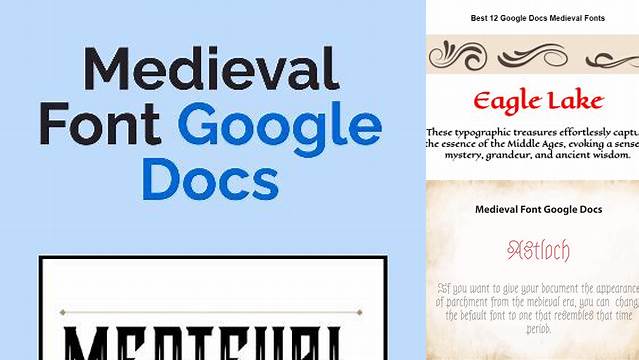
Awesome Medieval Fonts For Google Docs
Hey guys! Ever wanted to give your Google Docs a touch of history, maybe channel your inner scribe, or just make your document look super cool? Well, you're in luck! Today, we're diving deep into the world of medieval fonts you can use right inside Google Docs. Yep, you heard that right. We're talking about fonts that'll transport you back to the age of knights, castles, and, of course, epic tales. So, buckle up, because we're about to explore some seriously awesome font options that will make your documents stand out. Whether you're working on a creative writing project, a historical report, or just want to add a unique flair to your work, these fonts are your secret weapon. Let's get started, shall we?
1. Unveiling the Charm of Medieval Fonts
Alright, let's kick things off with a deep dive into what exactly defines a medieval font. These fonts are more than just letters; they're a window into the past. They capture the essence of the medieval era, with their intricate details and unique styles. Think about the elegant calligraphy used in illuminated manuscripts, the bold lettering seen on royal decrees, and the various styles crafted by scribes in monasteries across Europe. These fonts often feature flourishes, serifs, and sometimes even ligatures, which are special characters where two or more letters are combined. The beauty of medieval fonts lies in their ability to evoke a sense of history, making them perfect for projects that require a touch of authenticity. They can be used for a variety of projects, including historical fiction, creating invitations for themed events, or adding a vintage vibe to your documents. When choosing a medieval font, it's important to consider the overall feel you want to convey. Do you want something that looks elegant and refined, or something more rugged and bold? This choice will depend on the specific needs of your project. Google Docs offers a range of medieval-inspired fonts that bring the charm of the Middle Ages right to your fingertips. By using these fonts, you can elevate your documents and add a touch of historical sophistication.
1.1. Understanding the Characteristics of Medieval Typography
So, what makes medieval typography so special, you ask? Well, it's all about the details. Medieval fonts are characterized by several key features. Firstly, we have serifs. Serifs are the small strokes extending from the main strokes of a letter, giving it a distinctive look. Many medieval fonts use serifs to provide a sense of elegance and structure. Next, there's the use of varying stroke thickness. Medieval fonts often showcase a contrast between thick and thin strokes, adding depth and visual interest. The curves and angles of the letters are also important. Many medieval fonts are inspired by hand-drawn calligraphy, which is evident in the way the letters are crafted, with flowing lines and a sense of movement. Additionally, you'll find ligatures, where two or more letters are joined to create a single character, such as “æ” or “œ.” These ligatures were common in medieval writing and helped to improve the overall look of the text. When examining a medieval font, look for these characteristics. The interplay of serifs, stroke thickness, curves, and ligatures are all indicators of authentic medieval typography. Consider how these elements can influence your project. By selecting fonts with these qualities, you can create documents that look and feel truly medieval, adding depth and authenticity to your work.
1.2. The Historical Significance of Medieval Lettering
Let's talk history, shall we? Medieval lettering isn't just about aesthetics; it's also deeply connected to history. The fonts of the Middle Ages reflect the cultural, social, and technological developments of the time. The evolution of lettering styles mirrors the evolving styles of writing. Initially, most books and documents were written by hand by monks in monasteries. This meant that the way the text looked depended on the skills of the individual scribe. Gradually, different writing styles emerged, each with its own characteristics and regional variations. For example, the Gothic script became particularly popular in the late medieval period, characterized by its angular and condensed letterforms. This style was not just a way of writing, but also a reflection of the artistic values of the time. When we use a medieval font, we connect to a rich cultural heritage. We are not just choosing a design; we are embracing a part of history. The fonts we use were used in creating some of the most important documents in European history, from religious texts to royal decrees. Using these fonts can help create a deeper connection to the past and allow you to understand the evolution of typography.
2. Finding Medieval Fonts on Google Docs
2.3. Troubleshooting Font Issues in Google Docs
Sometimes, you might face some small font issues when working with Google Docs. Let's go over some ways to solve these issues. First, make sure the font you want to use is properly installed. Go to the font menu and double-check that the font is listed. If it’s not there, go back to the Google Fonts library and re-add it. Another common issue is the font rendering incorrectly. If the font looks distorted or not as expected, try refreshing your browser or clearing your browser cache. Sometimes, the font might not display correctly on other devices. This can happen if the device doesn't have the font installed. Make sure that the font is a web-based font. For a more consistent look, you can always use a PDF format, which embeds the fonts and will display correctly on any device. If you are having problems, you can always try reformatting the text or using a different font. If you still experience issues, Google Docs' support documentation or online forums can provide helpful advice. By following these troubleshooting tips, you can ensure your medieval fonts display as intended in Google Docs and make your documents great.
3. Top Medieval Fonts for Google Docs
Now, let's get to the good stuff: the fonts! I'm going to give you a rundown of the top medieval fonts you can find on Google Docs. These fonts have been selected for their historical accuracy, visual appeal, and ease of use. Each font adds a special touch to your projects, taking you back in time.
3.1. Font Recommendations for Historical Accuracy
If you are aiming for maximum historical accuracy, the selection of fonts is important. Here's what to look for. Goudy Medieval is an amazing choice. It's based on the work of Frederic Goudy, one of the most famous type designers. It has a classical look, with serifs, and is great for body text and headings. Fraktur fonts, such as “UnifrakturMaguntia” and “Blackletter,” are also good. These fonts are often associated with German culture, with the look that was popular in medieval times. They have a distinct style, and are great for a more unique look, particularly for headlines and titles. Look for fonts that imitate the calligraphy styles of the time. These fonts give a personalized touch to your documents, as they replicate the work of medieval scribes. For this type of font, look for those that include ligatures, ascenders, and descenders. These elements are important to convey the feel of old manuscripts and original medieval documents. By picking fonts from these options, you can create historically accurate documents and will take your projects to another level. It is important that you consider each font and what it adds to your project.
3.2. Stylish Medieval Fonts for Creative Projects
Looking for something a little more stylish to give your projects a unique touch? Let's explore some cool medieval fonts perfect for creative projects. For a touch of elegance, consider fonts that have a flowing, calligraphic feel. These fonts are great for invitations, certificates, and anything that needs a touch of sophistication. Another excellent choice is fonts with a strong, bold design. These types are useful in headings and titles, especially where you want to attract attention. When considering a font, you can also include elements of design, such as intricate borders. This can add a vintage look and feel to your work. Experiment with these elements and fonts. The result will be that you will find fonts that best reflect the style you need for your project. Don’t be afraid to try various styles and sizes to find the perfect fit. By using these tools, you can bring your creative projects to life. You can enhance your creativity.
3.3. Versatile Medieval Fonts for Various Uses
Some medieval fonts work great for any project. They are great for different uses, and can enhance the look of your work. Consider fonts that combine readability with visual appeal. These are great for body text, titles, and headings. You can select fonts that are legible and still have that historical feeling. Explore fonts with a wide variety of characters, including ligatures and special symbols. These details can add authenticity and visual interest to your work. Versatile fonts are also easy to use. They should have a complete character set, which will let you use them across many applications. These fonts can be combined with various other fonts, or you can add your own. By picking versatile fonts, you will be able to create documents that are visually attractive. These fonts are great for various projects, and will enhance the overall appeal.
4. Optimizing Your Use of Medieval Fonts
Alright, now that we have the fonts, how do we get the most out of them? Let's look at how to optimize the use of medieval fonts for the best results.
4.1. Pairing Medieval Fonts with Modern Fonts
Mixing and matching fonts is one of the best ways to make your documents pop. Pairing medieval fonts with modern fonts can create a great contrast that can highlight important information in your documents. For example, combine a strong medieval font for your headings with a clean sans-serif font for your body text. This will give your document a great look and add interest. You could also use modern fonts for your data and figures. For instance, if you are producing a historical report, you could use a medieval font for the heading and a modern font for the data. Another great idea is to mix fonts based on the feel you are going for. You could use a serif font for headings and then a sans-serif font for subheadings. By combining the right fonts, you can make any text look and read great. You can have the aesthetic of the Middle Ages while creating the readability of modern design. Consider using different combinations to get the best look.
4.2. Font Size and Spacing Considerations
Font size and spacing are crucial when using medieval fonts. Since medieval fonts are often more ornate than modern fonts, it is important to choose the right size. Experiment with different sizes to make sure the text is readable and visually appealing. For headings, use a larger font size to attract attention. For body text, stick to a size that's easy to read. Next, look at the spacing between lines and words. Medieval fonts can often look cramped if the spacing is too tight. Increase the line spacing and adjust the letter spacing as needed. Use the spacing features in Google Docs to adjust your text until it looks balanced and harmonious. Don't be afraid to play around with these features to see what works best. This will help you balance the medieval style while maintaining readability. Adjusting font size and spacing can truly enhance the look of your work.
4.3. Color and Background Choices with Medieval Fonts
Let's discuss color and backgrounds. When using medieval fonts, choosing the right colors and backgrounds is key to making your document visually appealing. Traditional color palettes in medieval documents often included gold, deep reds, greens, and blues. Using these colors, you can create a look that feels authentic to the era. When choosing a background, keep it simple. A plain background or a subtle texture can enhance the look of your text without distracting from it. If you want a more sophisticated look, consider a parchment or aged paper texture. Avoid backgrounds that are too busy. Experimenting with color combinations and backgrounds can add richness and authenticity to your project. By choosing the right colors and backgrounds, you can create the perfect presentation for your documents.
5. Creative Uses of Medieval Fonts in Google Docs
Okay, now for the fun part! Let's explore some creative ways to use these amazing medieval fonts in Google Docs.
5.1. Creating Invitations and Certificates with Medieval Flair
Invitations and certificates are perfect for incorporating a medieval look. For invitations, think about using a gothic font for the name or a decorative serif for the event details. Include some borders or illustrations to give your invitations the look and feel of vintage scrolls. You can do the same thing for certificates, which is another excellent way to showcase a medieval font. Consider creating a certificate of achievement or recognition with a border and a beautiful medieval font to make it stand out. Choose fonts that complement the theme, such as Fraktur or similar fonts. The use of color can further enhance the design. Gold and red are great for adding to the look and feel of your work. These invitations and certificates are a great way to add an original touch to your documents.
5.2. Designing Historical Fiction Documents and Reports
If you're working on historical fiction documents or reports, medieval fonts can really make a difference. Use these fonts for chapter titles, headings, and even body text to create an authentic look. Think about the era and setting of your story. If it's set in the early Middle Ages, consider using a font based on the uncial or Carolingian minuscule scripts. If your story is set later on, the Fraktur fonts are also great options. Combine these fonts with other design elements like illustrations and maps. By picking the right font for the tone and the time period, you can create documents that are both immersive and easy to read. This also applies to reports. It can help in presenting information in a way that is historically accurate and visually appealing. Using the right font can enhance the storytelling.
5.3. Enhancing Presentations and Educational Materials
Want to spice up your presentations and educational materials? Medieval fonts are perfect for doing just that. Use these fonts for titles, quotes, or important information to grab the attention of your audience. When giving a presentation, a well-chosen medieval font can add a touch of visual interest and reinforce the theme. For educational materials, consider incorporating medieval fonts in handouts, quizzes, and worksheets. You can use them to highlight important keywords or add an engaging visual element. Using these fonts can make learning more memorable and engaging. By taking these steps, your work can become captivating and effective.
6. Further Exploring Medieval Typography
Ready to dive even deeper? Let's explore some other aspects of the world of medieval typography.
6.1. Learning About the History of Typography
Want to learn more? Learning about the history of typography is a great way to deepen your understanding of medieval fonts. Start by studying the evolution of writing from the ancient world to the Middle Ages. Look at how scribes created manuscripts. You can also research the impact of the printing press and how it influenced the development of fonts. Learning about the key figures in typography, like Johannes Gutenberg and William Caslon, can give you a better grasp of the field. Online resources, books, and museum exhibits are great resources to learn. Consider the evolution of letters and how writing has changed throughout history. This will help you to understand and appreciate the fonts you're using. The ability to understand the history of fonts will make your projects more informative and help improve your skills.
6.2. Exploring Font Design and Character Sets
Do you want to create your own? Exploring font design and character sets will give you a more complete picture. Look at the structure and components of different medieval fonts. Examine the characteristics of various font styles, such as Gothic, Blackletter, and Roman. Check out how designers made each character to ensure that it matches the visual and historical context. Character sets include special characters, ligatures, and symbols. Learning to understand these sets will allow you to use fonts with greater depth. You can explore resources and tools to experiment with your own typography. The ability to understand the design and characters will boost your appreciation of fonts.
6.3. Resources for Further Font Exploration
Here are some resources for further font exploration. The internet is full of sources on typography, with tons of information. Websites like Google Fonts offer detailed information about different fonts, including their origins, design principles, and usage guidelines. You can visit online design communities to view font inspiration and interact with experts. Many websites provide tools for identifying fonts, such as “WhatTheFont,” where you can upload an image and find out what font is used. Books and educational resources are great. There are books that tell the history of typography and offer design tips. By using all these resources, you can deepen your knowledge and improve your skills.